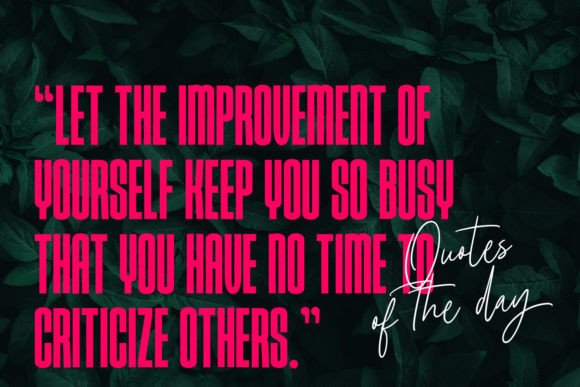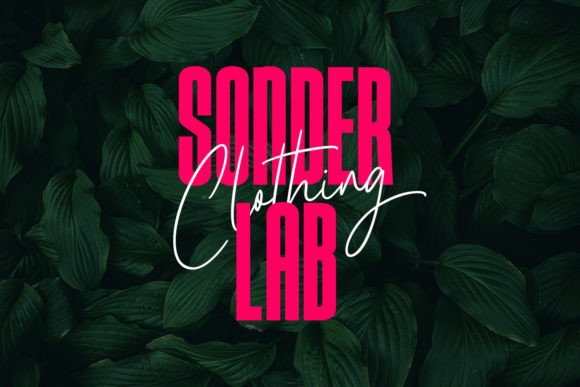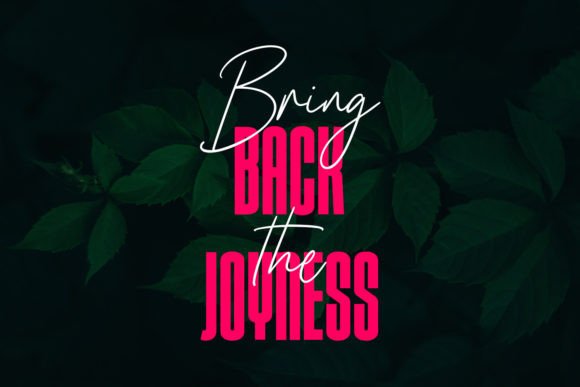
Introduction to Jammie Stars Font
Jammie Stars and Jammie Sans is an expressive font duo.
With bold contrast stroke, fun character with a bit of ligature and stylistic alternates To give you extra creative work.
Key Features of Jammie Stars Font
Why Choose Jammie Stars Font?
Jammie Stars Font offers exceptional quality and versatility, making it a valuable addition to your design toolkit. Whether you’re creating for personal projects or commercial use, Jammie Stars Font delivers professional results.